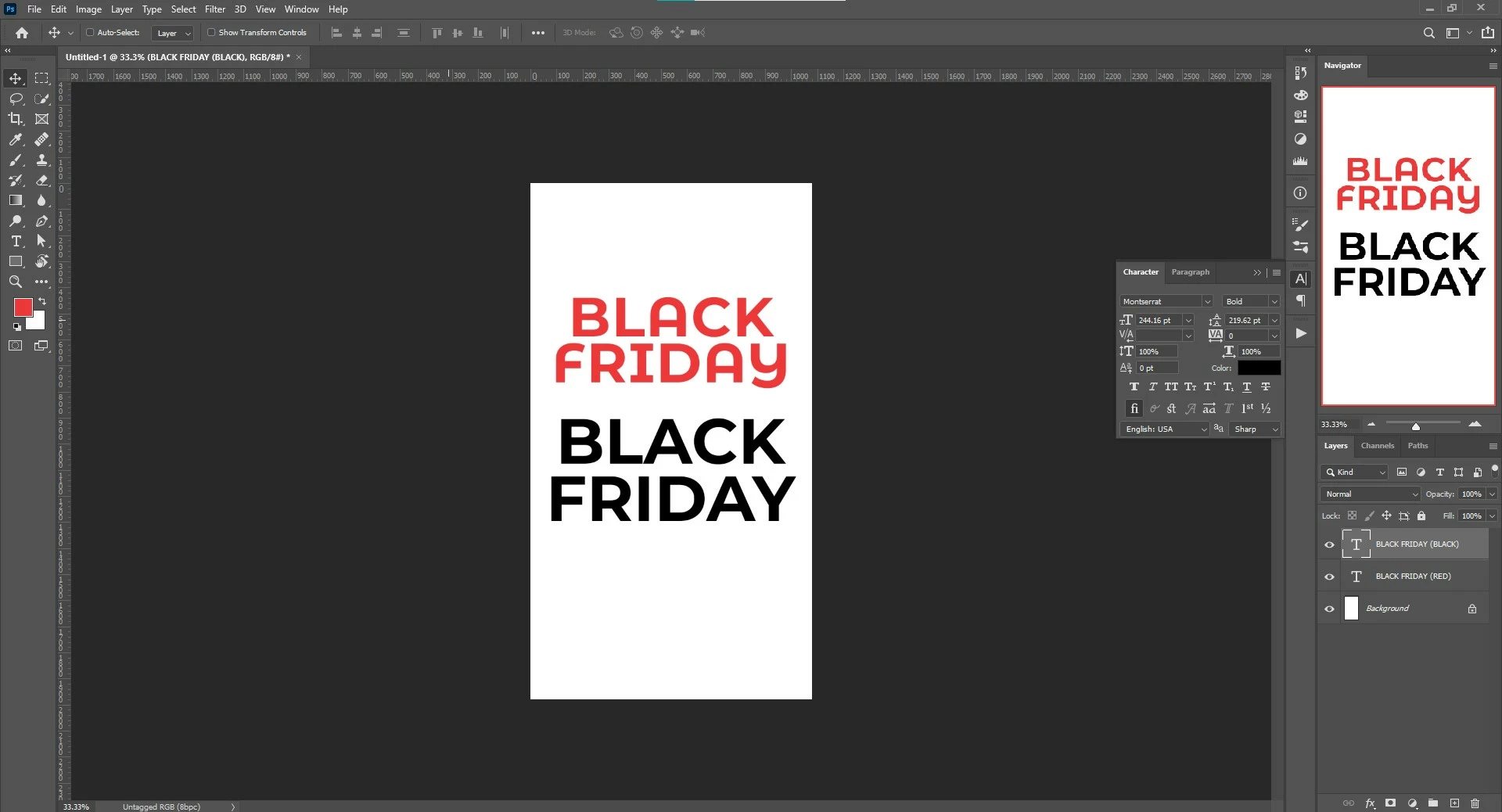
Same Font, Different Result
I get different result when i use the same font
Look at my Image
The Red and The Black use font "Montserrat"
The Red >> Create font when create new Layer
The Black >> Copy font from my old file to the new Layer
Can anyone solve this issue?
The red version is using alternate glyphs that are available in Montserrat. If you select a character, you should see a box appear below showing the alternate glyphs that you can select to use instead. Not all characters will have an alternate glyph. You can see all the glyphs available in a font by going to Window > Glyphs.